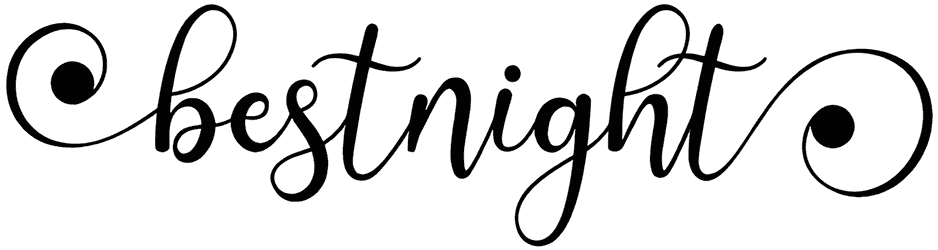
It can be said, the appearance of the manuscript is one of the most beloved ones, and even better than that, it is in harmony with many texts. Fadellica is a handwritten font with a delightful mood and contemporary face.
This fair font doesn’t include numbers, yet is fit for social media posts, postcards, illustrations, or suchlike. Start and make your contexts full of vim and vigor by Fadellica.
Fadellica is a handwritten font. Made for any professional project branding that need a modern and attractive typeface. It is the best for logos, branding and quotes. Every letter has a unique and beautiful touch.